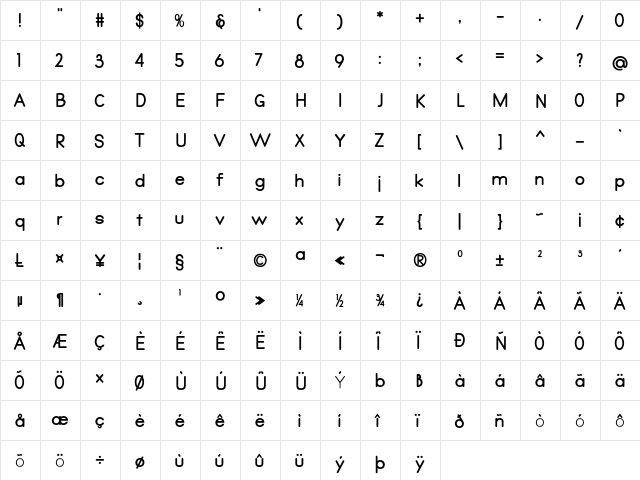
Qualio bold Regular
Design Context for Qualio bold Typeface
Qualio bold takes a measured approach to typography — its balanced proportions and neutral character make it a reliable workhorse for both digital and print work. The heavy weight commands attention and anchors typographic hierarchies.